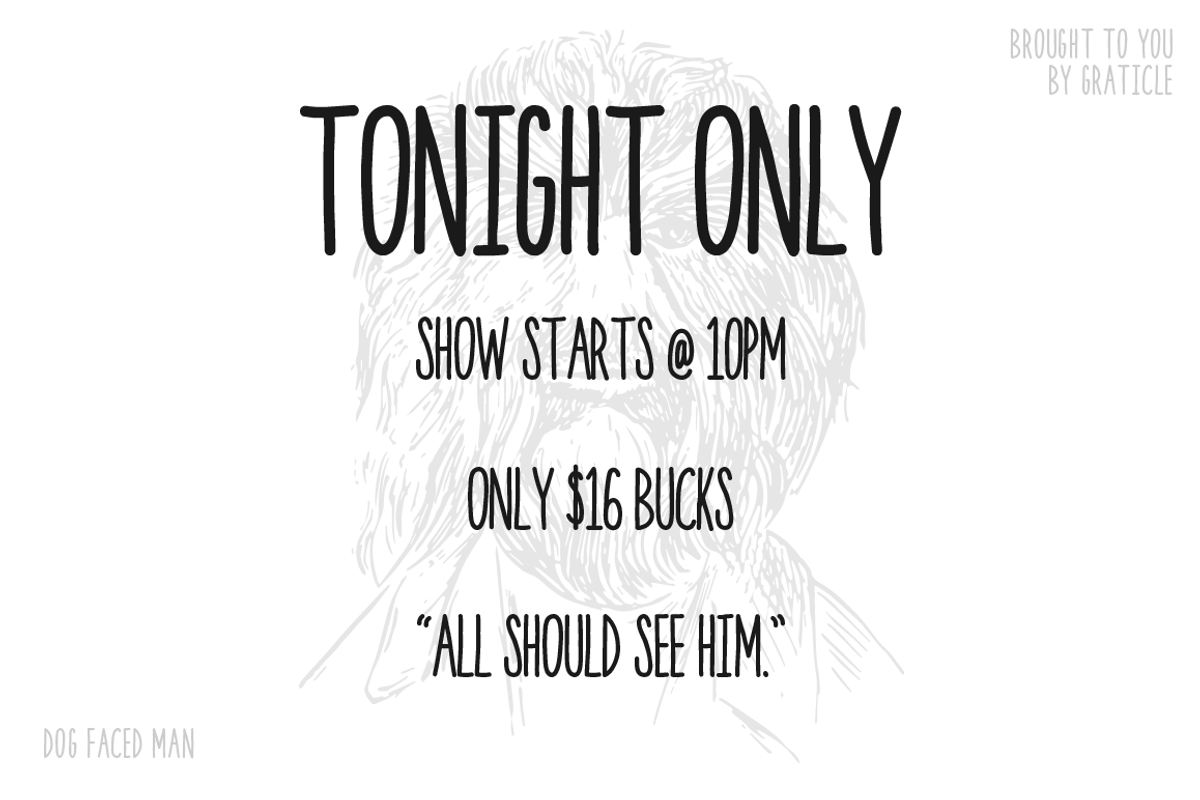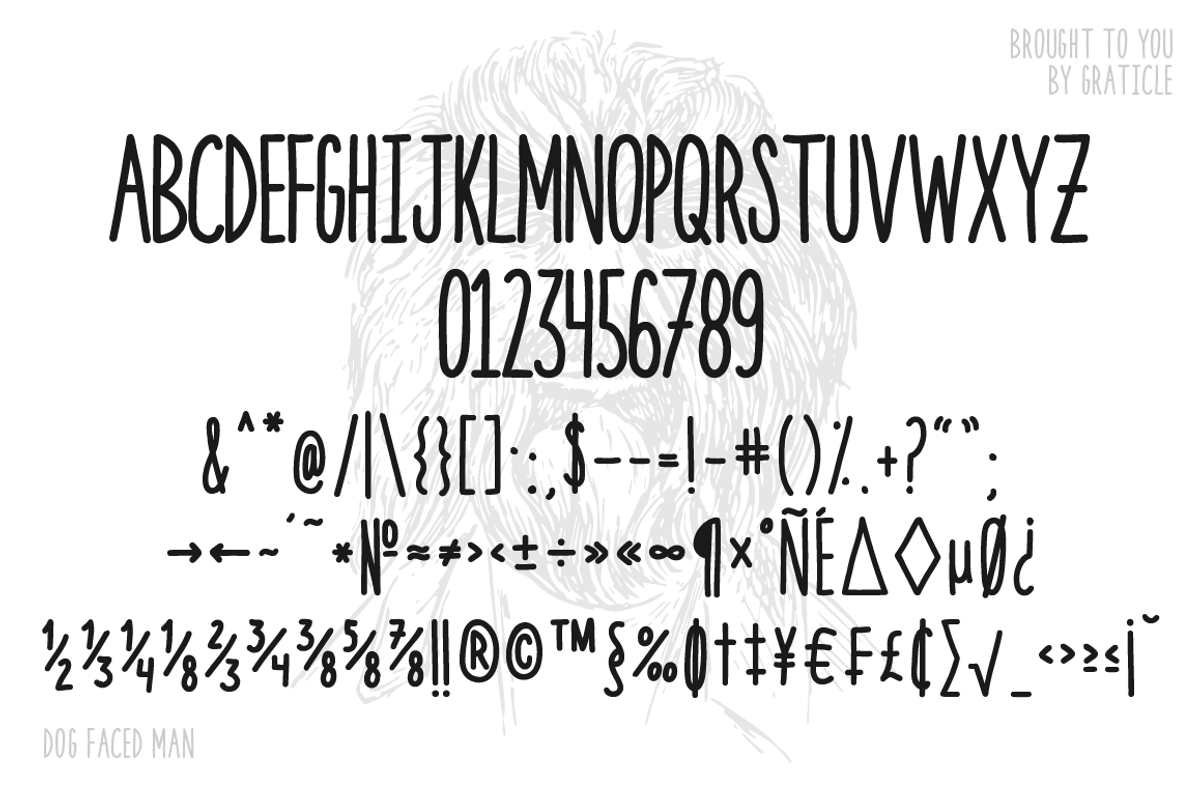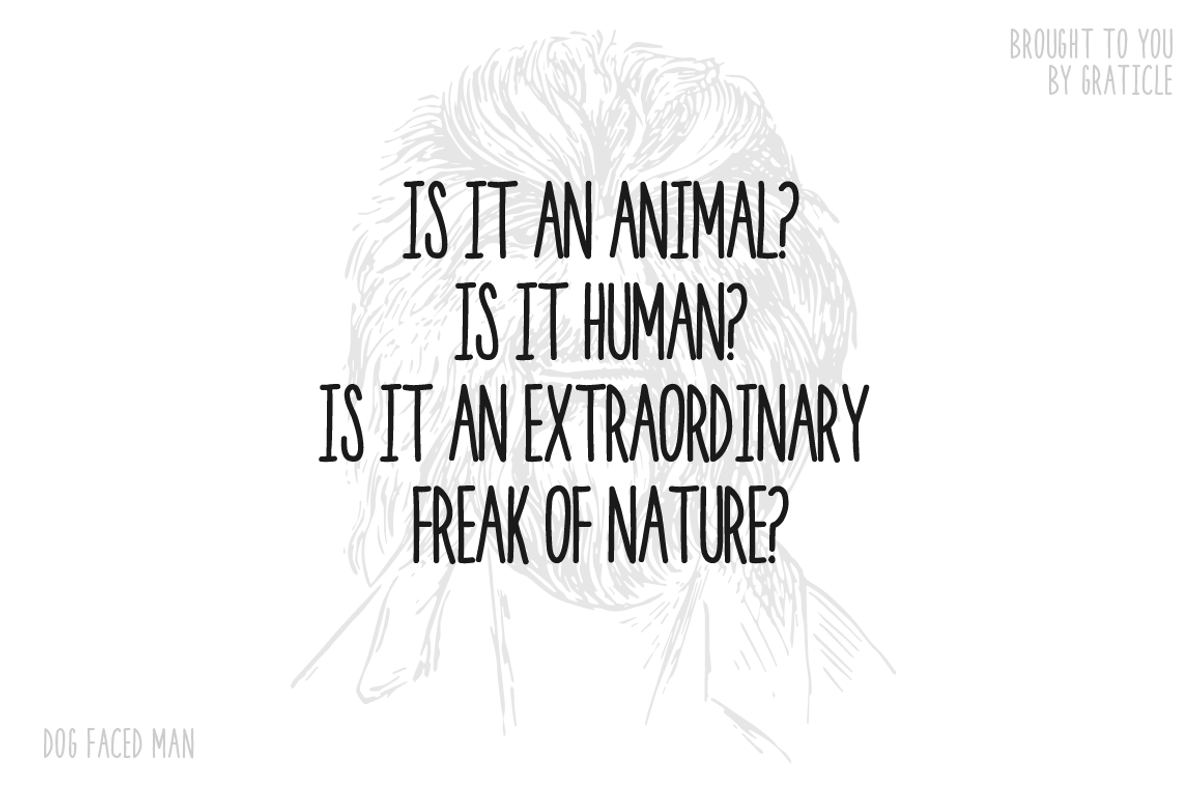
Dog Faced Man Font - Handwriting
Dog Faced Man Font - Handwriting by Graticle is a font selected for branding, posters, packaging, typography.
- This guy comes with uppercase characters and a whole slew of symbols.
Why Dog Faced Man Font - Handwriting is worth a look
Dog Faced Man Font - Handwriting by Graticle fits naturally into Branding, posters, packaging, typography.